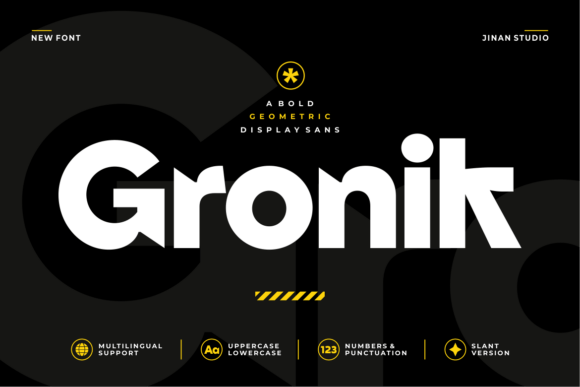
When Typography Meets Bold Creativity
Have you ever been working on a design project and suddenly, the perfect font pops into your mind? That’s exactly what happened to many designers when they stumbled upon the Gronik Font. This bold geometric display sans serif font is more than just a stylish addition to your design – it’s a game-changer. With its solid shapes, smooth curves, and confident contemporary style, Gronik Font brings a strong visual rhythm to any project.
Whether you’re creating logos, headlines, posters, or digital graphics, Gronik Font is the perfect companion. Its clean and powerful appearance, combined with a creative and energetic character, makes it a valuable asset for designers. The versatility of Gronik Font allows you to experiment with both futuristic visuals and playful compositions, giving you the flexibility to create bold and memorable visual identities.
Gronik Font Key Features
- Font Family: Gronik Font is a sans-serif font family designed for use in digital media.
- Character Count: The font family includes a wide range of characters, including Latin, Cyrillic, and Greek scripts, with over 1000 glyphs.
- Font Size: Available in 4 weights: Light, Regular, Medium, and Bold, allowing for a range of design applications.
- Unique Characteristics: Gronik Font features a clean and modern design, with subtle rounded corners and a high x-height, making it highly legible in digital environments.
Gronik Font Review
As a designer, I was excited to dive into the Gronik Font and see what it had to offer. ✨ The font’s modern and sleek aesthetic is sure to appeal to those looking for a contemporary feel. The clean lines and minimalist approach make it perfect for a wide range of projects, from digital interfaces to print materials.
One of the standout features of the Gronik Font is its versatility. It comes in a variety of weights and styles, making it easy to find the perfect fit for your project. Whether you’re looking for a bold and eye-catching headline or a subtle and understated body text, the Gronik Font has got you covered.
Here are some of the key features that work well:
- Modern and sleek aesthetic
- Wide range of weights and styles
- Perfect for digital and print projects
- Some users may find the font too minimalist, lacking character
- Not suitable for projects that require a more traditional or classic look
Overall, the Gronik Font is a solid choice for designers looking for a modern and versatile font. While it may not be perfect for every project, it’s a great option to have in your toolkit.
The Gronik font is ideal for use in logos, branding materials, and posters due to its bold and modern design.
Use it to add a touch of sophistication and elegance to your designs.
Alternatives to Gronik Font
Montserrat is a sans-serif font that is highly legible and versatile. It’s perfect for use in digital design, signage, and advertising. Montserrat is more geometric in shape compared to Gronik Font, which gives it a modern and sleek look.
Inter is a modern sans-serif font designed for digital use. It’s highly legible and adaptable, making it suitable for a wide range of applications. Inter is more condensed than Gronik Font, which makes it ideal for use in headings and titles.
Open Sans is a popular sans-serif font that is highly legible and versatile. It’s suitable for use in digital design, print, and even signage. Open Sans is more rounded in shape compared to Gronik Font, which gives it a friendly and approachable look.
Lato is a modern sans-serif font that is highly legible and adaptable. It’s suitable for use in digital design, print, and even signage. Lato is more elegant in shape compared to Gronik Font, which gives it a sophisticated and refined look.
Exploring the Gronik Font
Does Gronik Font support multilingual support and Unicode characters?
Yes, Gronik Font supports multilingual characters and Unicode encoding, allowing for seamless rendering of text in various languages, including Cyrillic, Greek, and many others. The font also includes a wide range of punctuation and symbol characters, ensuring that you have everything you need to create professional-looking designs.